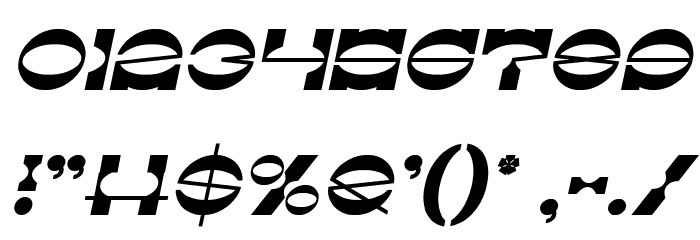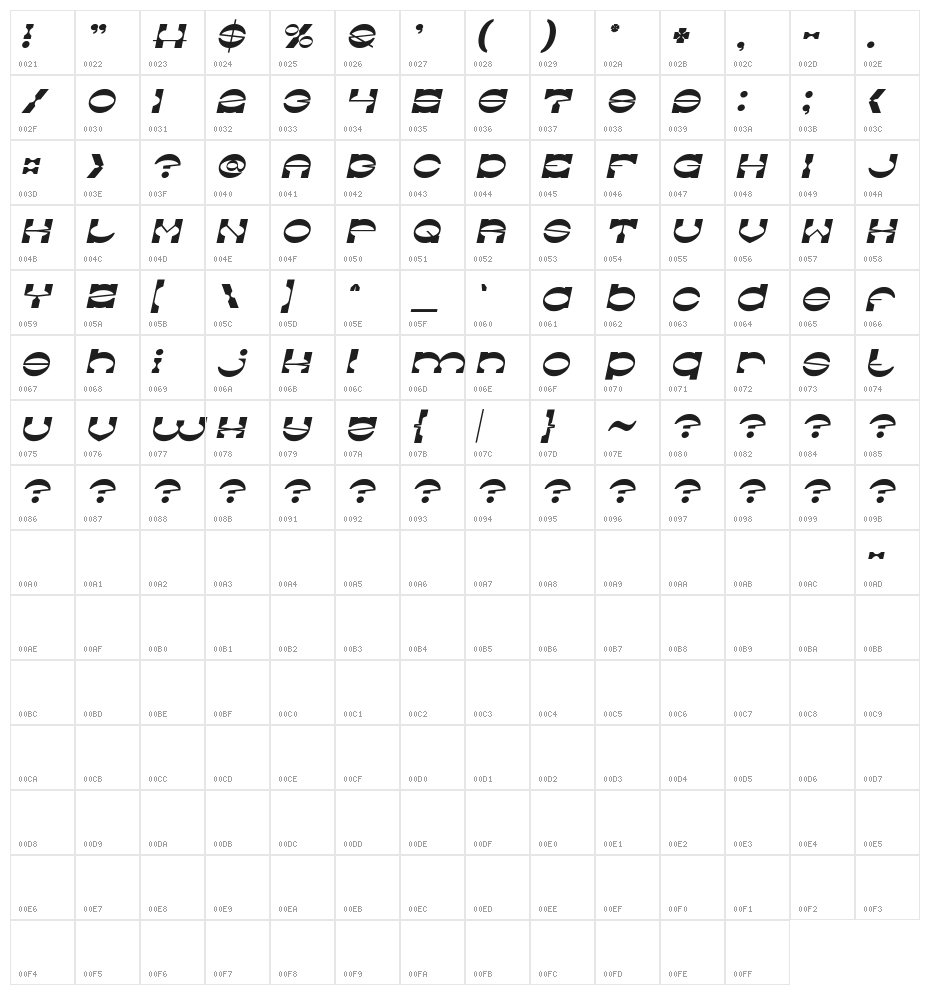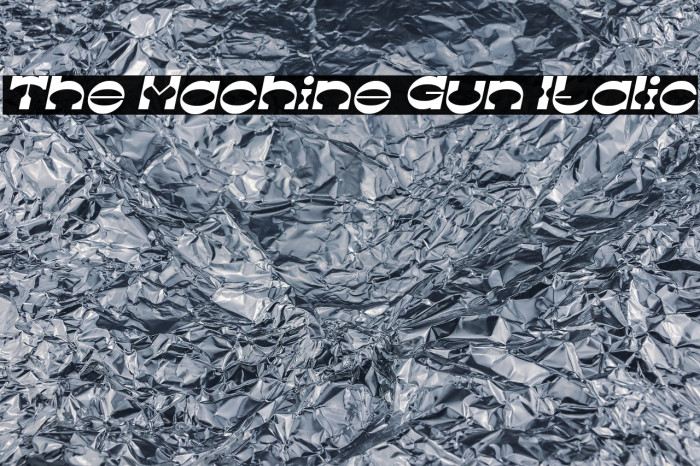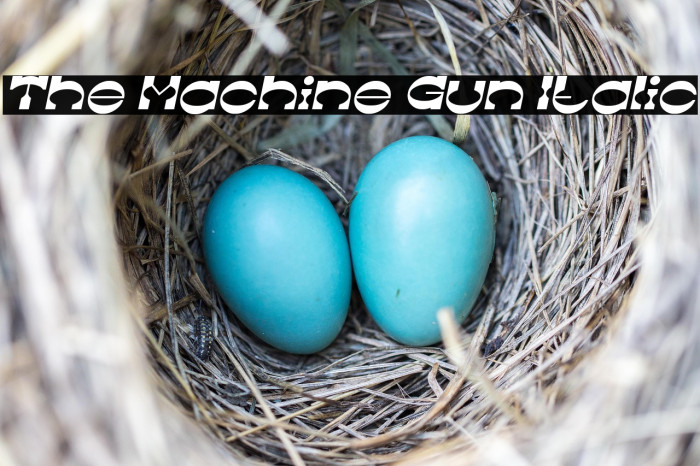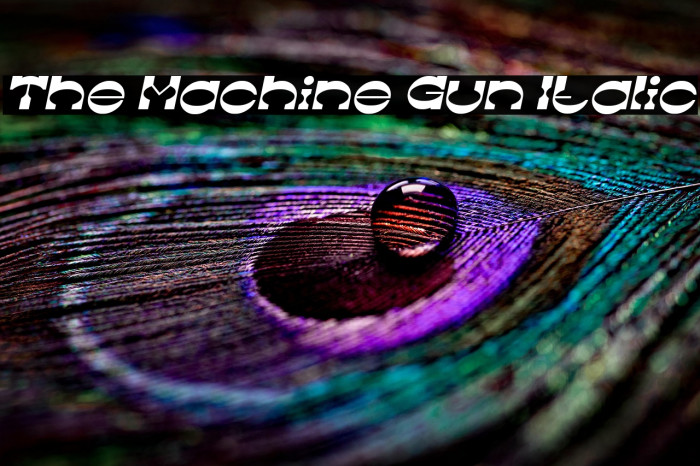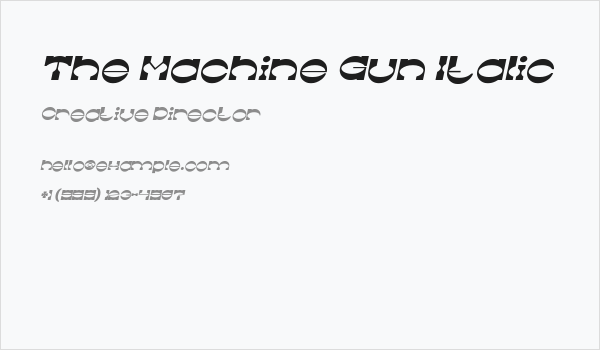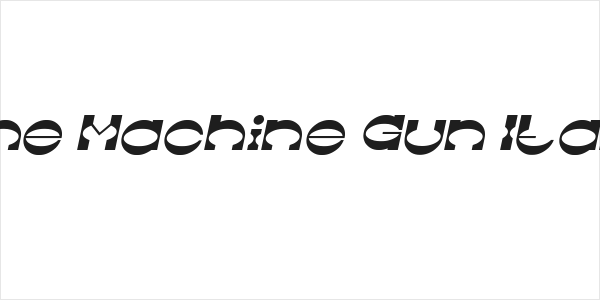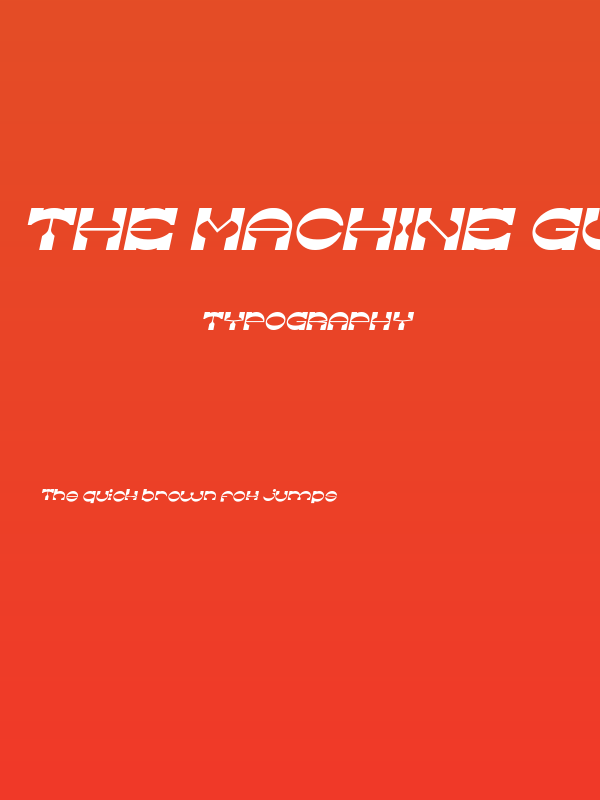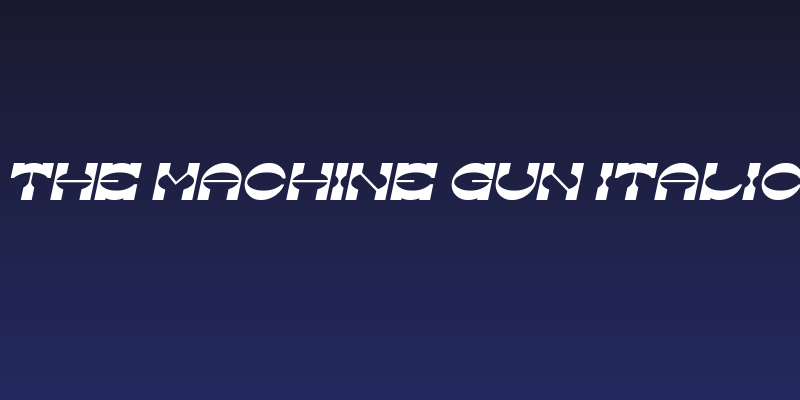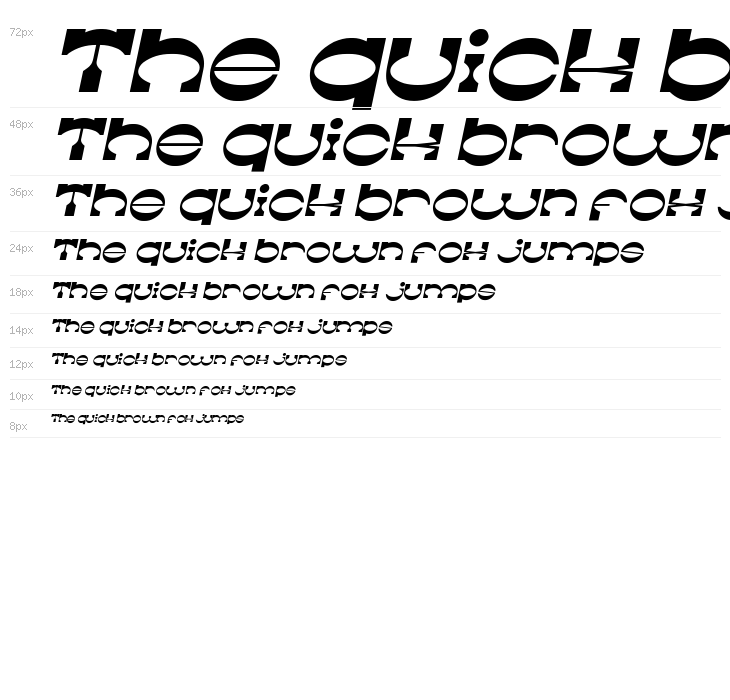
The Machine Gun Italic Font
The Machine Gun Italic Description
This font features a bold, futuristic design with a distinct slant, giving it an italicized appearance. The characters are constructed with sharp angles and geometric shapes, creating a dynamic and aggressive aesthetic. The uppercase and lowercase letters maintain a consistent style, with the uppercase being more pronounced. Numbers and special characters follow the same design principles, ensuring uniformity across all glyphs. The font's unique style makes it stand out, ideal for projects that require a modern and edgy look.